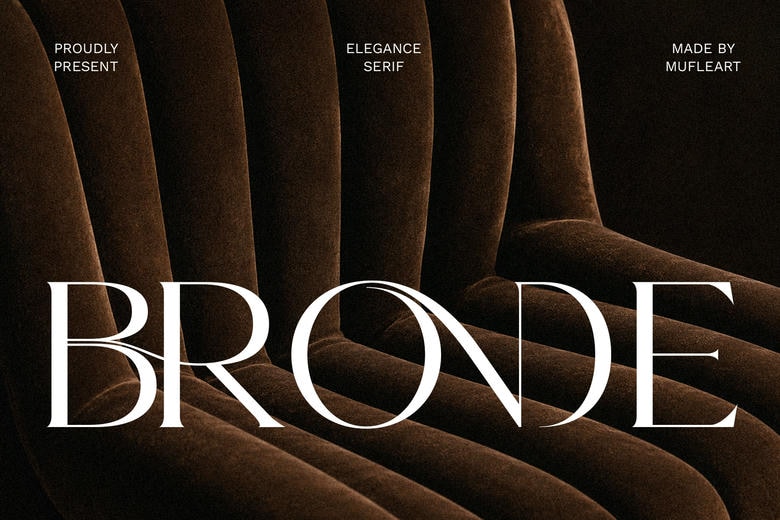
Bronde Font
Bronde is a serif font that adds a refined, confident, and premium feel to modern brands. Its sophisticated and elegant style makes it stand out.
Bronde’s graceful details, balanced proportions, and modern look make it a great fit for luxury branding, corporate identities, editorial design, fashion, beauty, hospitality, packaging, advertising, and high-end digital products.
Bronde works well for both creative and professional uses. It helps brands express elegance, trust, sophistication, and a sense of timeless quality.
Bronde Elegant Serif Font